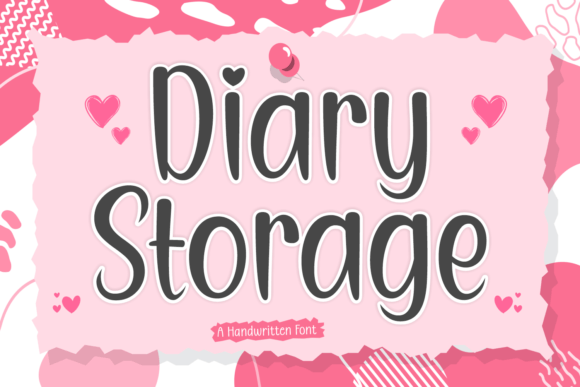
Introducing Diary Storage Font: The Epitome of Charm and Elegance
In the world of typography, few fonts manage to strike a balance between timeless elegance and modern flair. Diary Storage Font is one such exceptional font that embodies charm, sophistication, and versatility. This lovely and modern script font is perfect for designers and crafters looking to add a touch of refinement to their projects.
The Characteristics of Diary Storage Font
Diary Storage Font boasts sleek and graceful strokes that are perfectly balanced with a contemporary twist. This unique blend of classic and modern elements makes it an ideal choice for a wide range of applications. Whether you’re designing wedding invitations, social media graphics, or any other visual project, Diary Storage Font is sure to impress.
What Makes Diary Storage Font Stand Out
• Timeless Elegance: Diary Storage Font’s classic script style ensures that your designs will never go out of fashion.
• Modern Flair: The font’s contemporary twist adds a fresh and modern touch to your projects.
• Versatility: Use Diary Storage Font for everything from formal wedding invitations to casual social media graphics.
• Ease of Readability: The font’s clear and flowing strokes make it easy to read, even at smaller sizes.
Diary Storage Font is a dream come true for designers and crafters looking for a font that can elevate their work. Its versatility and elegance make it suitable for:
• Wedding Invitations: Create beautiful, bespoke wedding invitations that set the tone for the big day.
• Social Media Graphics: Add a touch of sophistication to your social media posts and stories.
• Branding and Packaging: Use Diary Storage Font to create a cohesive and luxurious brand identity.
• Stationery and Paper Crafts: Add a personal touch to your stationery, journals, and paper crafts.
Diary Storage Font is a truly exceptional font that offers a perfect blend of timeless elegance and modern flair. Its versatility, readability, and charm make it an ideal choice for designers and crafters looking to elevate their work. Whether you’re creating wedding invitations, social media graphics, or any other visual project, Diary Storage Font is sure to impress.